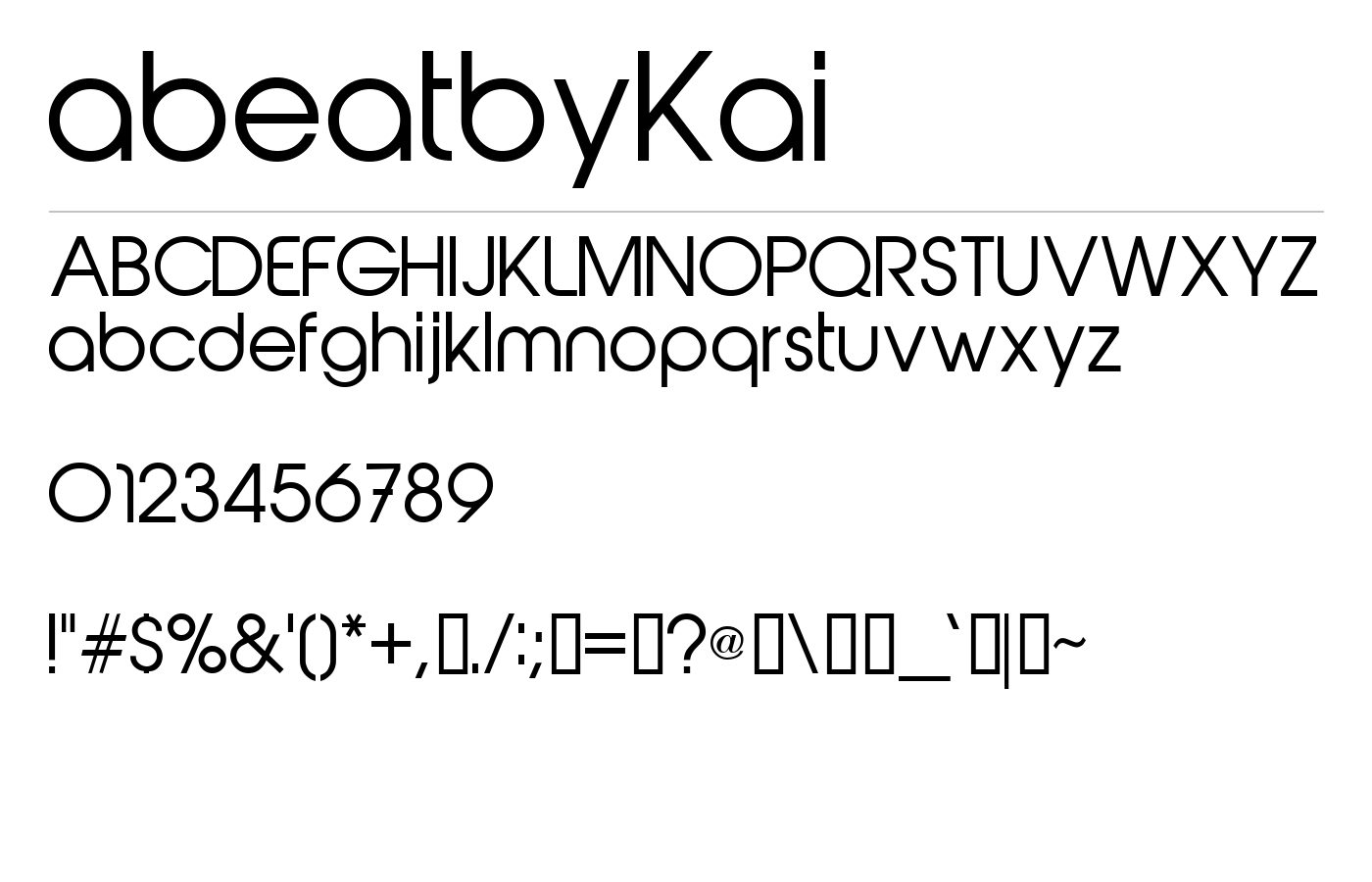
abeatbyKai is a sleek, modern sans serif font with a clean, geometric feel and a light to regular weight that gives it an airy and elegant appearance. Its high x-height and tight letter spacing make it highly readable while maintaining a refined and contemporary aesthetic, perfect for fashion branding, editorial headlines, and stylish web use. This font’s minimalist design lends a sense of sophistication and modernity, ideal for projects that want to convey clarity and chic simplicity.
abeatbyKai Font